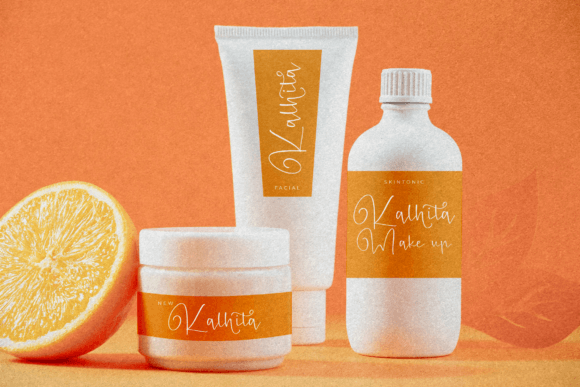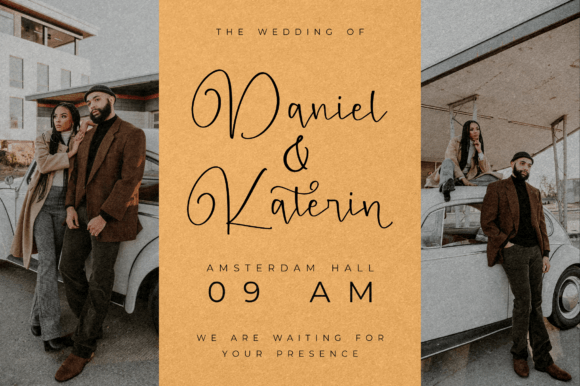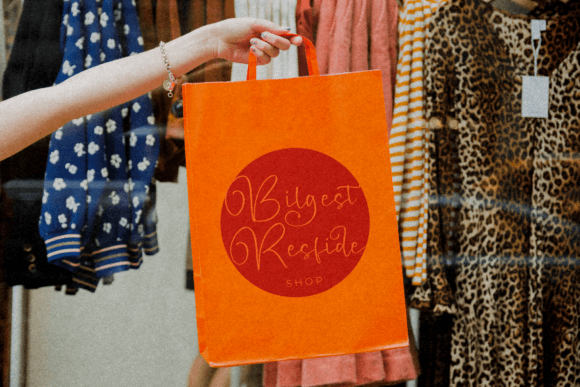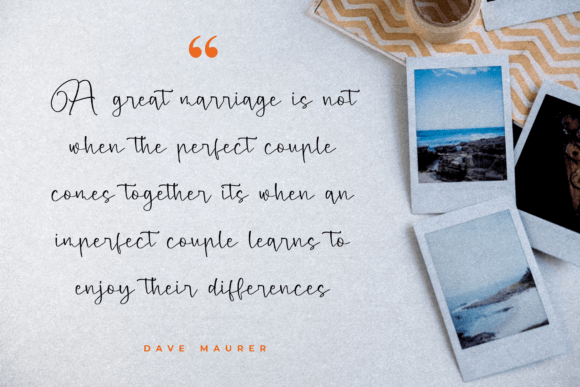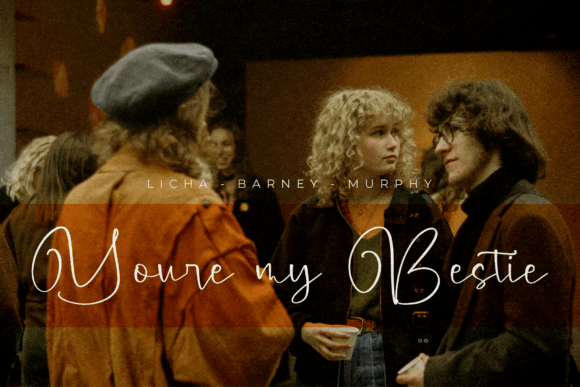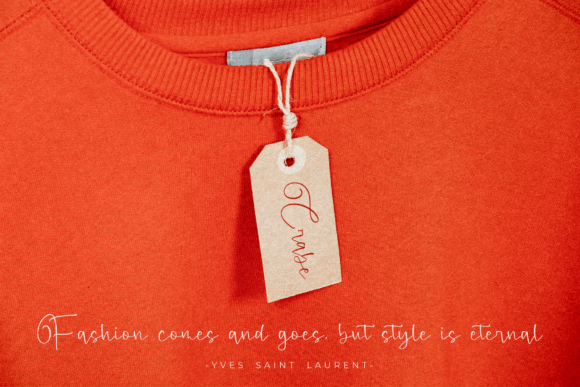
Introducing Cardega Bhilmote: The Elegant Script Font for Your Creative Projects
Are you a designer, crafter, or DIY enthusiast looking for a beautiful script font to elevate your projects? Look no further than Cardega Bhilmote, a stunning script font that’s perfect for a wide range of applications. From logos and branding projects to homeware designs, product packaging, and more, Cardega Bhilmote is the ideal choice for anyone seeking a touch of elegance and sophistication.
What Makes Cardega Bhilmote Special?
Cardega Bhilmote is a meticulously crafted script font that’s designed to add a touch of beauty and refinement to any project. Its elegant lettering and flowing curves make it perfect for creating visually stunning designs that capture the eye and leave a lasting impression. Whether you’re working on a logo, a poster, or a product label, Cardega Bhilmote is sure to bring a level of sophistication and style that’s hard to match.
Uses for Cardega Bhilmote
One of the best things about Cardega Bhilmote is its versatility. This beautiful script font can be used for a wide range of projects, including:
- Logos and branding projects: Create a lasting impression with a custom logo that showcases your brand’s personality and style.
- Homeware designs: Add a touch of elegance to your home decor with custom designs that feature Cardega Bhilmote.
- Product packaging: Make your products stand out on store shelves with eye-catching packaging that features this beautiful script font.
- Mugs and ceramics: Create custom mugs, plates, and other ceramics that showcase your personal style.
- Quotes and posters: Add a touch of inspiration to your walls with custom quotes and posters that feature Cardega Bhilmote.
- Shopping bags and packaging: Elevate your brand’s shopping experience with custom bags and packaging that feature this elegant script font.
- T-shirts and apparel: Create custom t-shirts, hoodies, and other apparel that showcases your personal style.
- Book covers and journals: Add a touch of sophistication to your book covers and journals with Cardega Bhilmote.
- Name cards and invitation cards: Create custom name cards and invitation cards that make a lasting impression.
- Greeting cards and labels: Add a personal touch to your greeting cards and labels with this beautiful script font.
- Photography and watermark: Use Cardega Bhilmote to add a touch of elegance to your photos and watermark.
Why Choose Cardega Bhilmote?
So why choose Cardega Bhilmote over other script fonts? Here are just a few reasons why this font stands out:
- Elegant and sophisticated: Cardega Bhilmote is a beautifully crafted script font that’s perfect for anyone seeking a touch of elegance and refinement.
- Versatile: This font can be used for a wide range of projects, from logos and branding to homeware designs and product packaging.
- Easy to read: Despite its elegant and cursive nature, Cardega Bhilmote is easy to read and understand, making it perfect for use in a variety of contexts.
- Unique: Cardega Bhilmote is a unique and distinctive font that’s sure to make your projects stand out from the crowd.
Tips for Using Cardega Bhilmote
To get the most out of Cardega Bhilmote, here are a few tips to keep in mind:
- Use it sparingly: While Cardega Bhilmote is a beautiful font, it can be overwhelming if used too much. Use it sparingly to add a touch of elegance to your designs.
- Pair it with other fonts: Cardega Bhilmote pairs well with a variety of other fonts, so don’t be afraid to experiment with different combinations.
- Experiment with colors: Cardega Bhilmote looks great in a variety of colors, so don’t be afraid to experiment and find the perfect hue for your project.
Cardega Bhilmote is a beautiful script font that’s perfect for designers, crafters, and DIY enthusiasts looking to add a touch of elegance and sophistication to their projects. With its elegant lettering, flowing curves, and versatility, this font is sure to become a staple in your design toolkit. So why wait? Download Cardega Bhilmote today and start creating stunning designs that showcase your personal style.